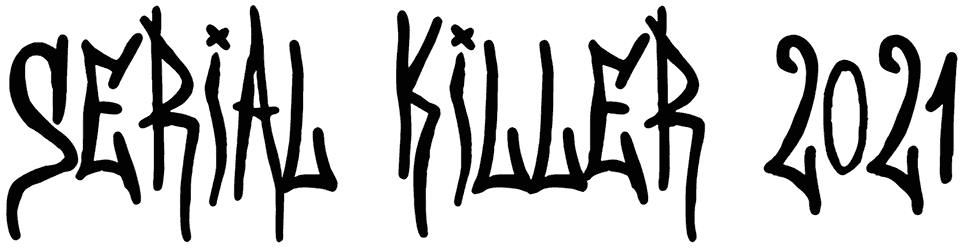
Serial Killer 2021 Font
Serial Killer 2021 will engage you with its strange, creepy design! It’s a graffiti font inspired by street art with a fun, animated, urban look. It’s also captivating, but at the same time, it has a secretive feel.
The slim characters are distorted, which makes it interesting, even tho it does not offer a lower case alphabet. As Serial Killer 2021 has a mix of different moods, you might want to try it in horror-comedy movies, comics, branding, games, adverts, and posters.
Serial Killer 2021